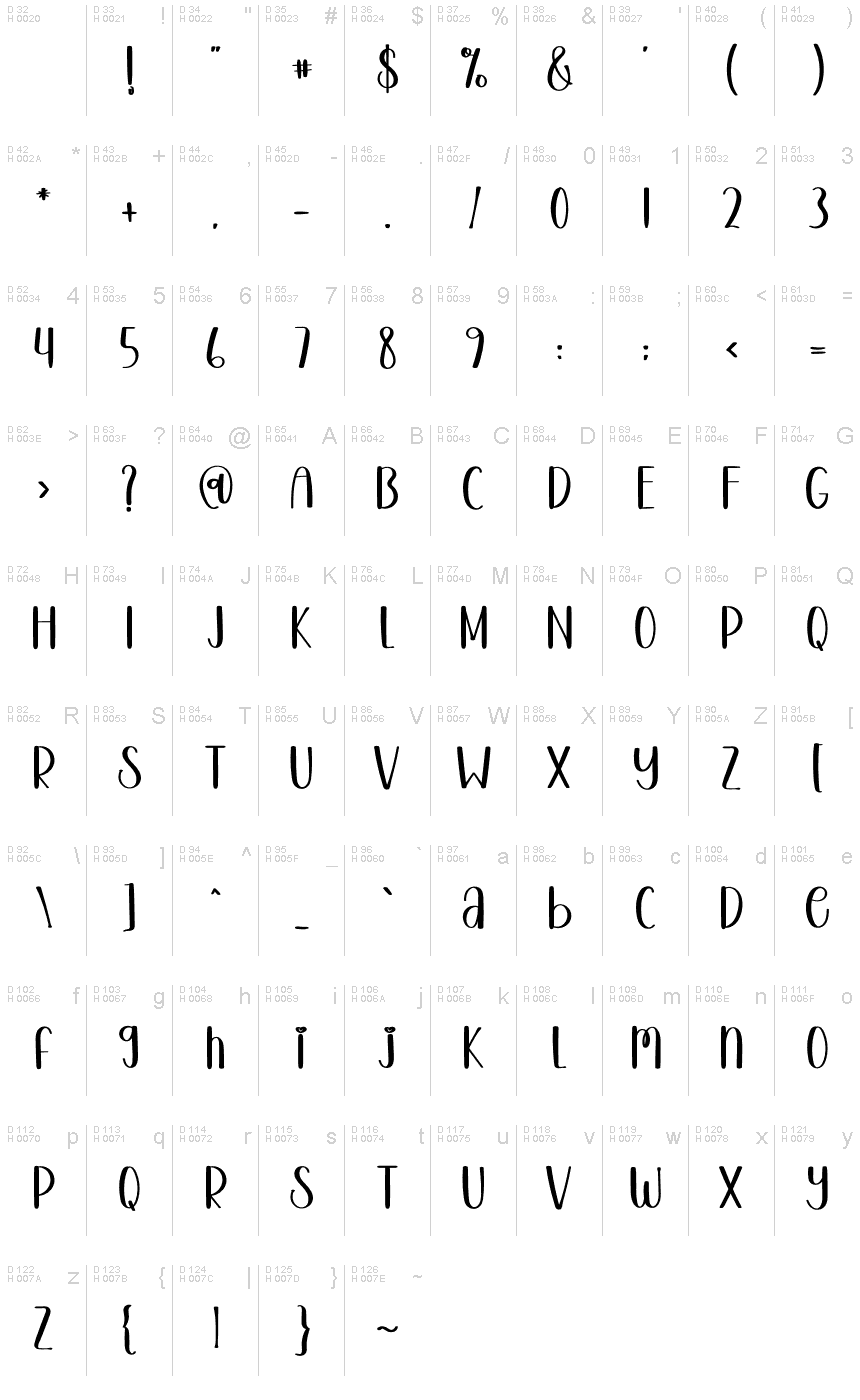
Winter CHristmas
Introducing Winter Christmas, a narrow display font designed by Inermedia Studio. Its perfect for creating eye-catching holiday cards, festive posters, and unique gift tags. It also adds an elegant touch to winter-themed logos, web banners, and other creative projects.